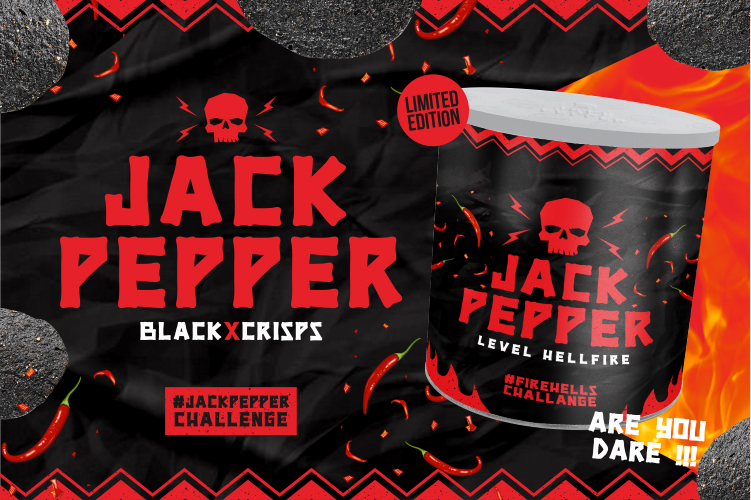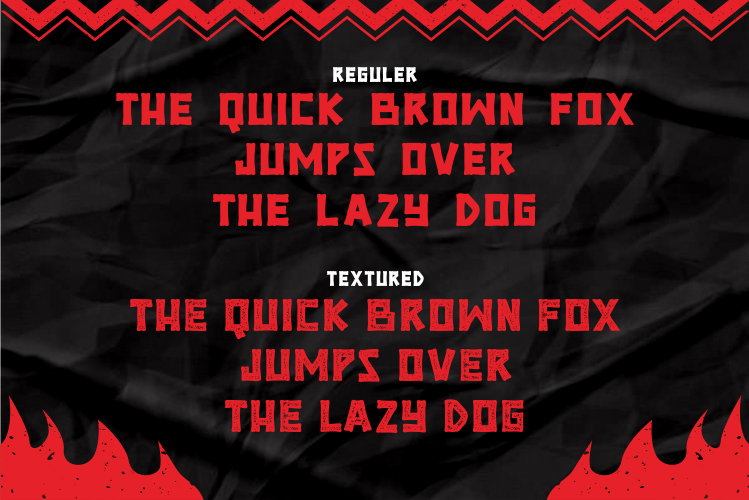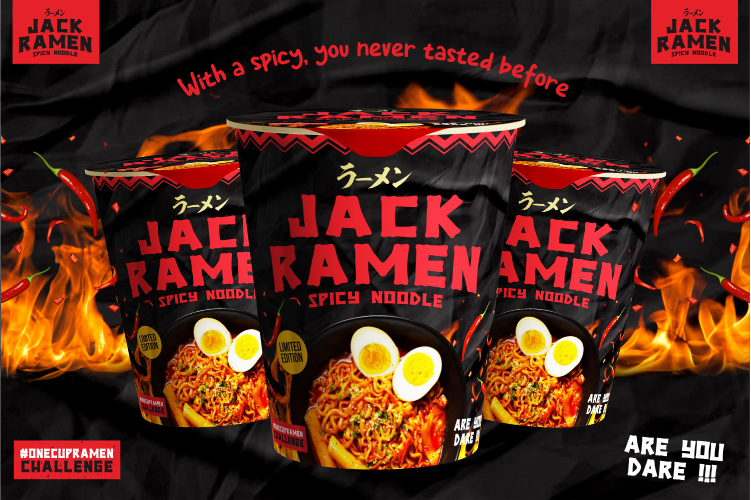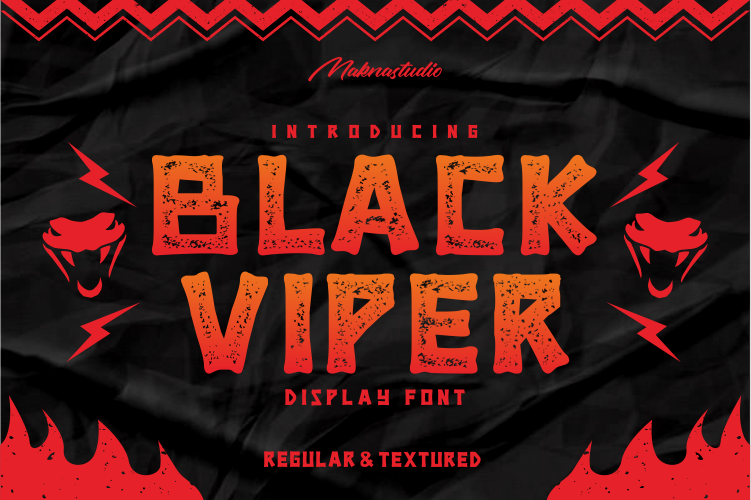
BLACK VIPER Display Font
BLACK VIPER Font is a bold uniqe typeface, They pair well together and look great on comics, brand design, and logo product etc
WITH 2 STYLE
-REGULER
-TEXTURED